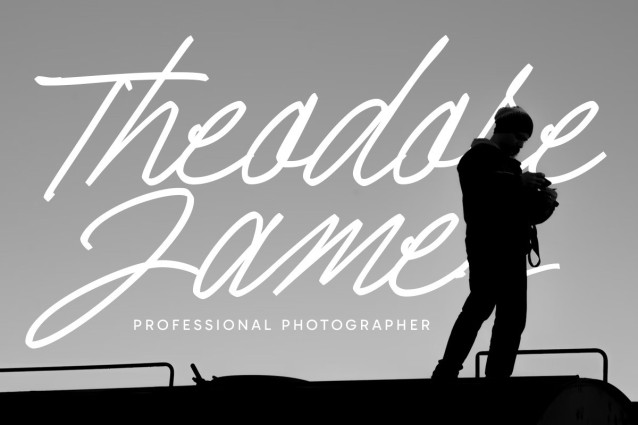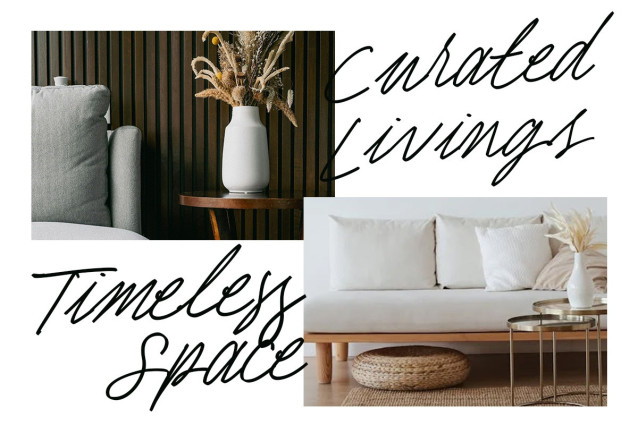
Blanco Script Font
Blanco Script Font is a natural handwritten font that captures the effortless charm of real handwriting with a slightly edgy, editorial twist. Its thin, fluid strokes and loose, spontaneous rhythm make it perfect for fashion branding, magazine layouts, personal logos, and creative projects that aim to feel authentic and expressive.